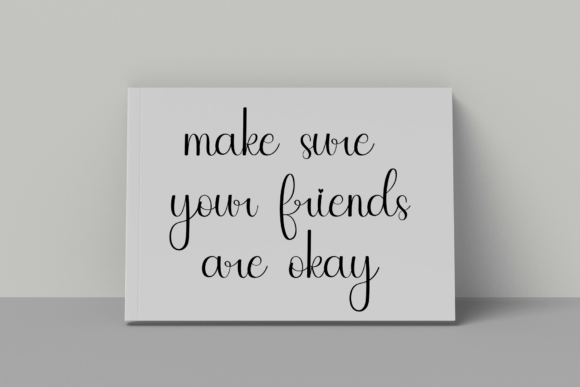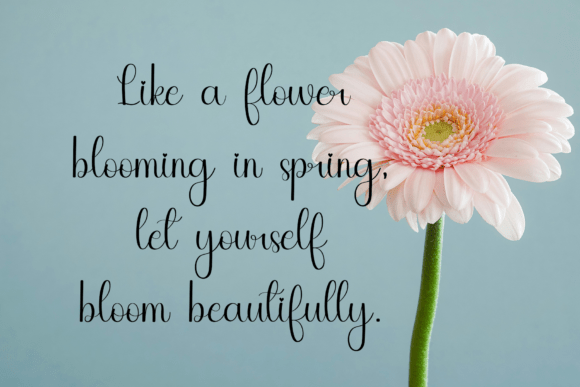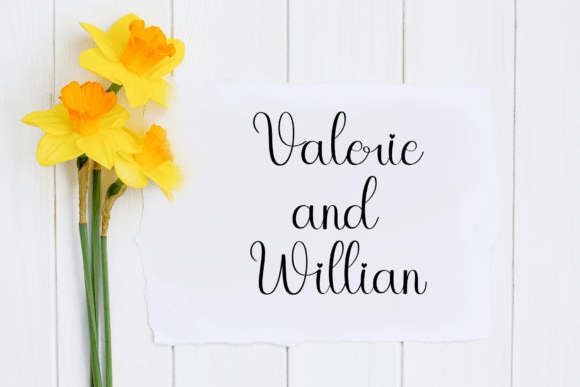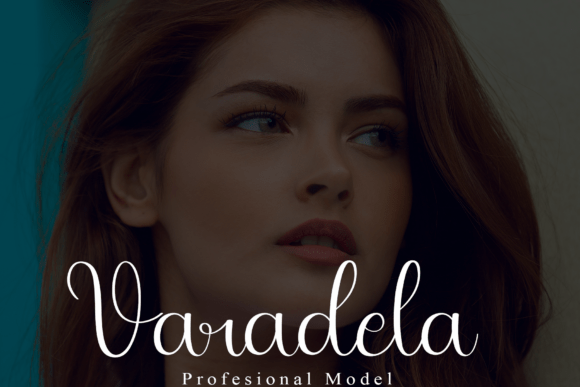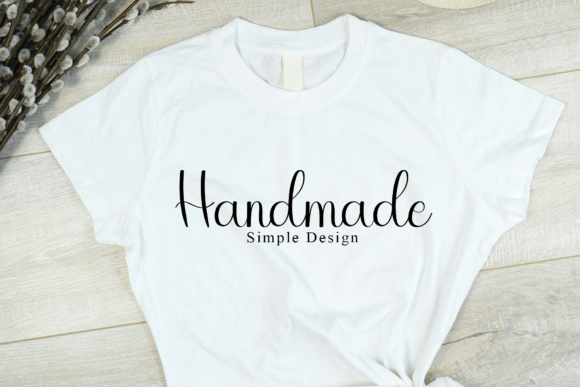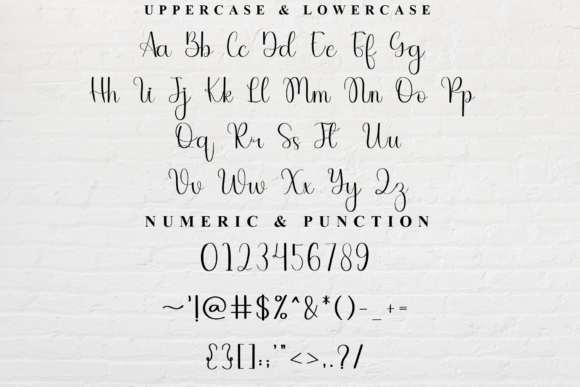
Introducing Carrolina Font: The Ultimate Holiday Typeface
Are you looking for a font that embodies the spirit of the holiday season? Look no further than Carrolina Font, a festive and merry typeface that’s perfect for adding a touch of enchantment to your designs. With its decorative elements and whimsical flair, Carrolina is sure to bring a cheerful and nostalgic ambiance to your words.
A Festive Font for Holiday Projects
Carrolina Font is specifically designed to capture the magic of the holiday season. Its decorative elements and whimsical flair make it perfect for a variety of holiday-themed projects, including greeting cards, gift tags, and festive posters. Whether you’re a designer, crafter, or DIY enthusiast, Carrolina Font is the perfect addition to your typography collection.
Key Features of Carrolina Font
- Decorative Elements: Carrolina Font features a range of decorative elements, including swashes, flourishes, and other festive details. These elements add a touch of whimsy and fun to your designs, making them perfect for holiday-themed projects.
- Whimsical Flair: Carrolina Font has a distinctly whimsical feel, making it perfect for designers who want to add a touch of personality to their work. The font’s playful curves and lines give it a friendly, approachable feel that’s sure to delight.
Carrolina Font is perfect for designers and crafters who want to add a touch of holiday cheer to their work. Whether you’re creating greeting cards, gift tags, or festive posters, this font is sure to bring a smile to your customers’ faces. Here are just a few ways you can use Carrolina Font in your designs:
- Greeting Cards: Create festive greeting cards for Christmas, Hanukkah, or other holiday celebrations. Carrolina Font is perfect for adding a personal touch to your cards.
- Gift Tags: Add a touch of personality to your gift tags with Carrolina Font. The font’s decorative elements and whimsical flair make it perfect for gift-giving.
- Holiday Posters: Create festive posters for holiday events, sales, or promotions. Carrolina Font is sure to grab attention and add a touch of holiday cheer to your designs.
Tips for Using Carrolina Font
Here are a few tips for getting the most out of Carrolina Font:
- Experiment with Sizes: Carrolina Font looks great in a variety of sizes, from small and delicate to large and bold. Experiment with different sizes to find the perfect fit for your design.
- Combine with Other Fonts: Carrolina Font pairs well with a range of other fonts, from simple sans serifs to more decorative script fonts. Experiment with different combinations to find the perfect look for your design.
- Play with Colors: Carrolina Font looks great in a range of colors, from traditional holiday colors like red and green to more modern shades like metallic silver and gold. Experiment with different colors to find the perfect fit for your design.
Carrolina Font is a festive and merry typeface that’s perfect for adding a touch of enchantment to your designs. With its decorative elements and whimsical flair, it’s sure to bring a cheerful and nostalgic ambiance to your words. Whether you’re a designer, crafter, or DIY enthusiast, Carrolina Font is the perfect addition to your typography collection.